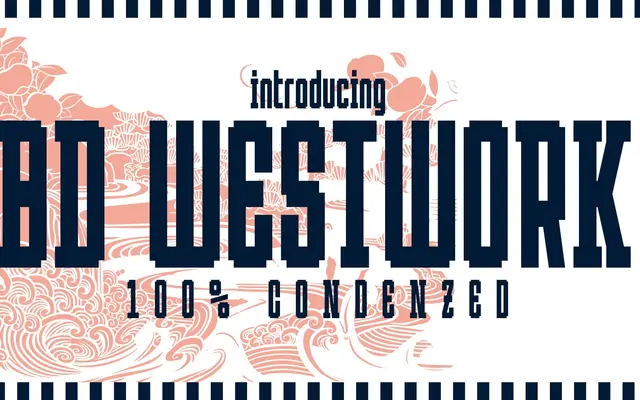
BD Westwork
Type Different · 2018
A very condensed bold pixel display typeface with stylistic alternates, inspired by the 1973 Westworld film.
Built on a pixel grid and drawn in a single very condensed bold style, BD Westwork is intended for display and headline use. Stylistic alternates for letters including B, C, D, F, L, M, P, R, W, X, Y and Z allow for visual variation within a single weight. The foundry suggests it works well in combination with delicate illustrations, photography and serif or sans-serif body text.
A very condensed bold pixel typeface designed explicitly for display use, with stylistic alternates and a bitmap-inspired aesthetic drawn from pixel grid construction.